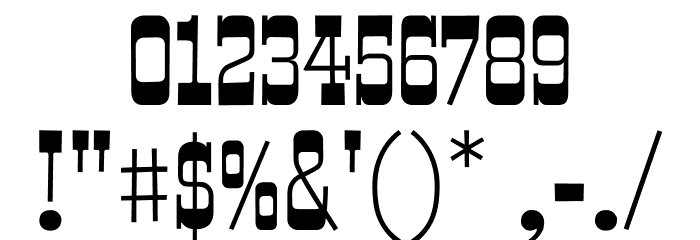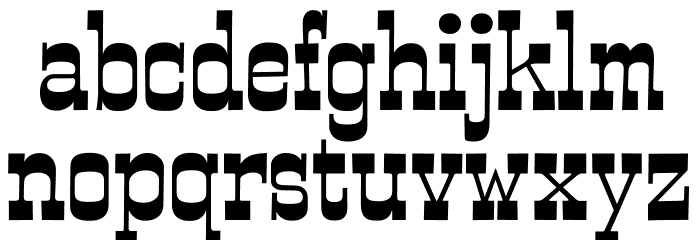
Smokum Font
This font features a bold, slab serif style with a distinctive Western flair. The characters are robust and have a strong presence, making them ideal for attention-grabbing designs. The uppercase letters are particularly wide and blocky, while the lowercase letters maintain a consistent weight and style. The numerals are equally bold, ensuring they stand out in any composition. Special characters are designed with the same boldness, adding to the font's cohesive look. The overall design is reminiscent of vintage signage, with a modern twist that makes it versatile for various applications.
A bold, slab serif font with a Western-inspired, vintage style.
• Font: Smokum
• Proposed Projects: Ideal for posters, signage, branding projects, and any design requiring a strong, vintage aesthetic.
• Category: Slab Serif
• Bold: Yes
• Italic: No
• Weight: Bold
• Width: Expanded
• Character Spacing: Normal
• Contrast: Medium
• Overall Style: Vintage
• Use Case: Headlines, Logos, Posters